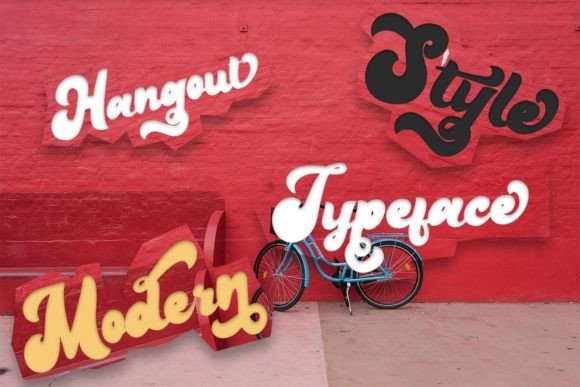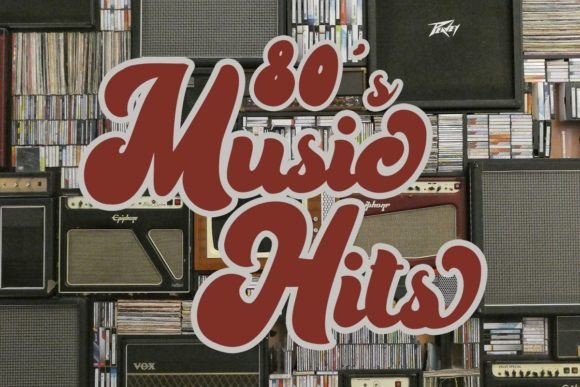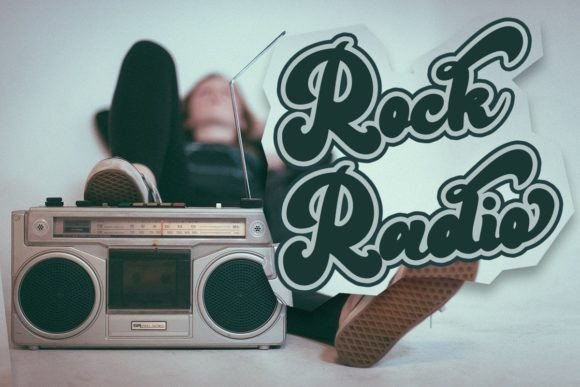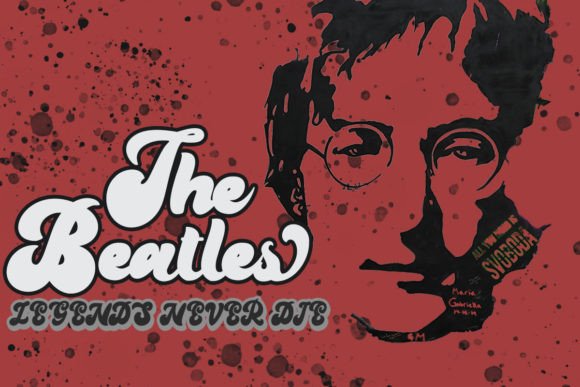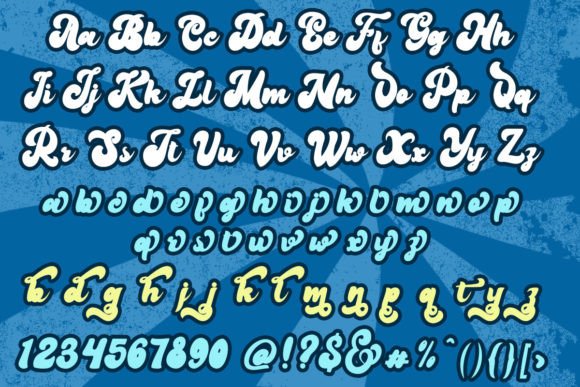
Unleash Your Creativity with Doctor Frankestein Font
Are you a designer, crafty enthusiast, or simply someone who loves to add a touch of personality to their projects? Look no further than the Doctor Frankestein Font, a funky and retro bold script font that’s sure to bring a smile to your face. With its quirky and dynamic design, this font is the perfect addition to any creative project.
What is Doctor Frankestein Font?
Doctor Frankestein Font is a bold script font that’s reminiscent of the classic horror movies and retro posters of the past. Its unique design features exaggerated letterforms, irregular strokes, and a dash of playfulness that’s hard to resist. This font is perfect for adding a touch of whimsy and personality to your designs, whether you’re working on a logo, poster, or social media graphics.
Key Features of Doctor Frankestein Font
• Funky and Retro Design: Doctor Frankestein Font boasts a bold and eye-catching design that’s sure to turn heads. Its retro vibe is perfect for creating vintage-inspired posters, logos, and graphics.
• Quirky and Dynamic: This font’s irregular strokes and exaggerated letterforms give it a quirky and dynamic feel that’s perfect for adding character to your designs.
• Bold and Legible: Despite its playful design, Doctor Frankestein Font is surprisingly legible, making it perfect for use in a variety of applications, from headlines to body text.
Use Cases for Doctor Frankestein Font
So, what can you use Doctor Frankestein Font for? The possibilities are endless! Here are a few ideas to get you started:
• Logos and Branding: Add a touch of personality to your logo or brand identity with this unique and memorable font.
• Posters and Flyers: Create eye-catching posters and flyers that grab attention and leave a lasting impression.
• Social Media Graphics: Add some personality to your social media graphics, including Facebook posts, Twitter headers, and Instagram stories.
• Packaging Design: Use Doctor Frankestein Font to create eye-catching packaging designs that stand out on store shelves.
Tips for Using Doctor Frankestein Font
To get the most out of Doctor Frankestein Font, here are a few tips to keep in mind:
• Use it Boldly: This font is designed to make a statement, so don’t be afraid to use it in bold and eye-catching ways.
• Experiment with Colors: Doctor Frankestein Font looks great in a variety of colors, so don’t be afraid to experiment and find the perfect hue for your design.
• Mix and Match: Combine Doctor Frankestein Font with other fonts to create a unique and interesting design.
Font Name Doctor Frankestein Font
Author Al Mughni Studio3
Doctor Frankestein Font is a funky and retro bold script font that’s sure to add tons of character to your creative projects. With its quirky and dynamic design, this font is perfect for designers, crafty enthusiasts, and anyone who wants to add a touch of personality to their work. So why wait? Download Doctor Frankestein Font today and start unleashing your creativity!